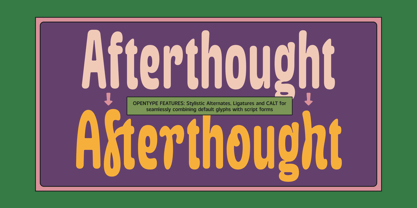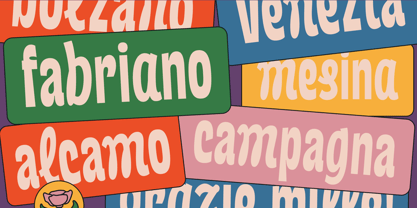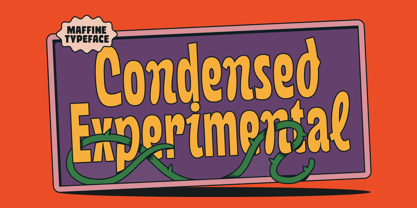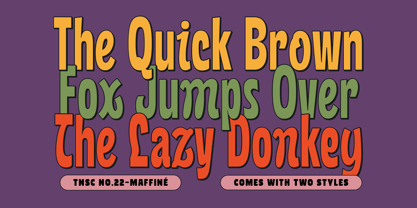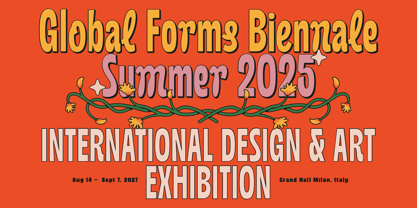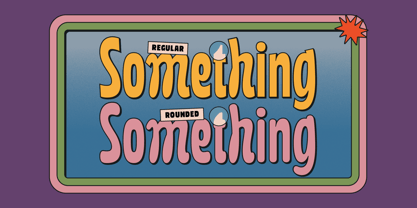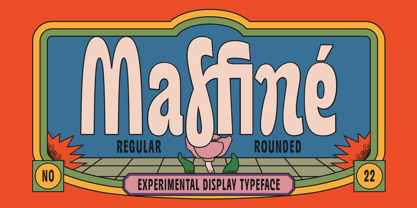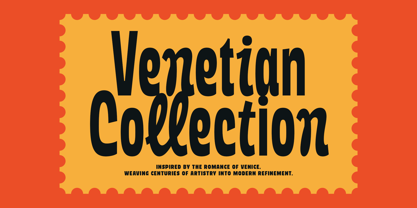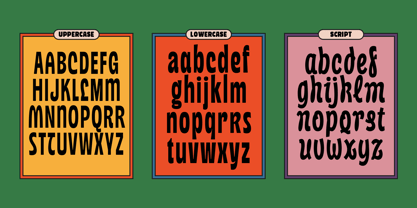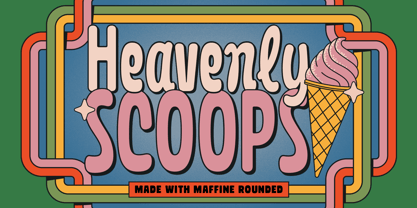
The Maffine Font Family was designed by Bagas Ferdiansah, Septianto Nugroho and published by The Native Saint Club. Maffine contains 2 styles and family package options. More about this family
TNSC Maffiné is a Experimental and playful display typeface crafted in a Regular & Rounded styles. With its quirky organic curves, it’s perfect for headlines, posters, branding, packaging, quotes and more.
Designers: Bagas Ferdiansah, Septianto Nugroho
Foundry: The Native Saint Club
Maffine